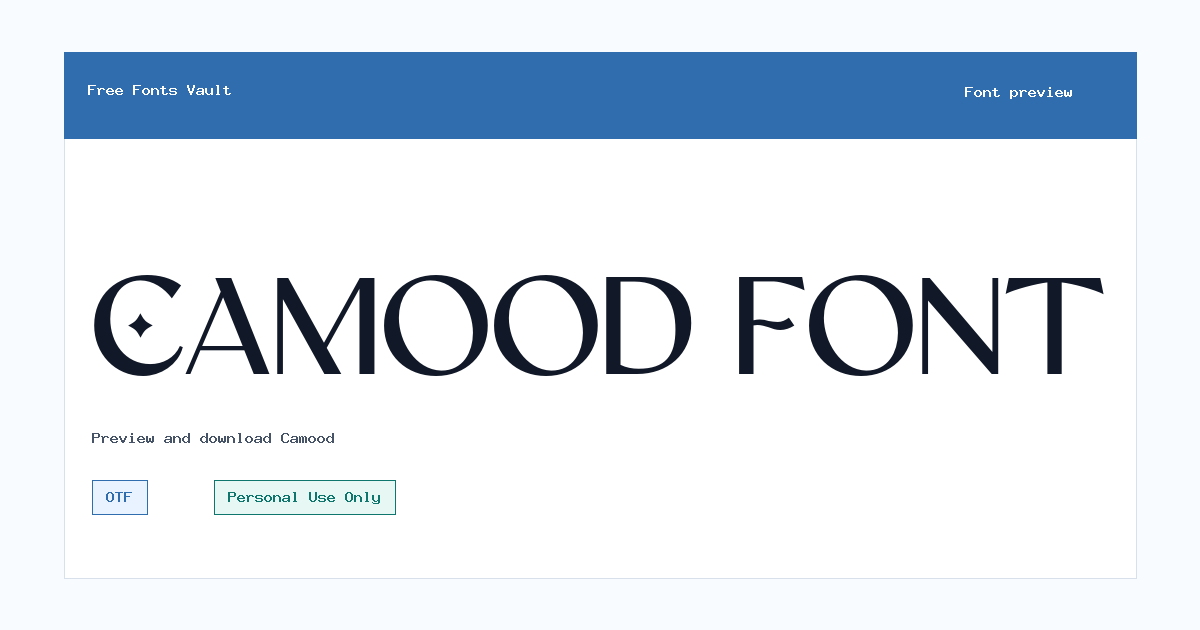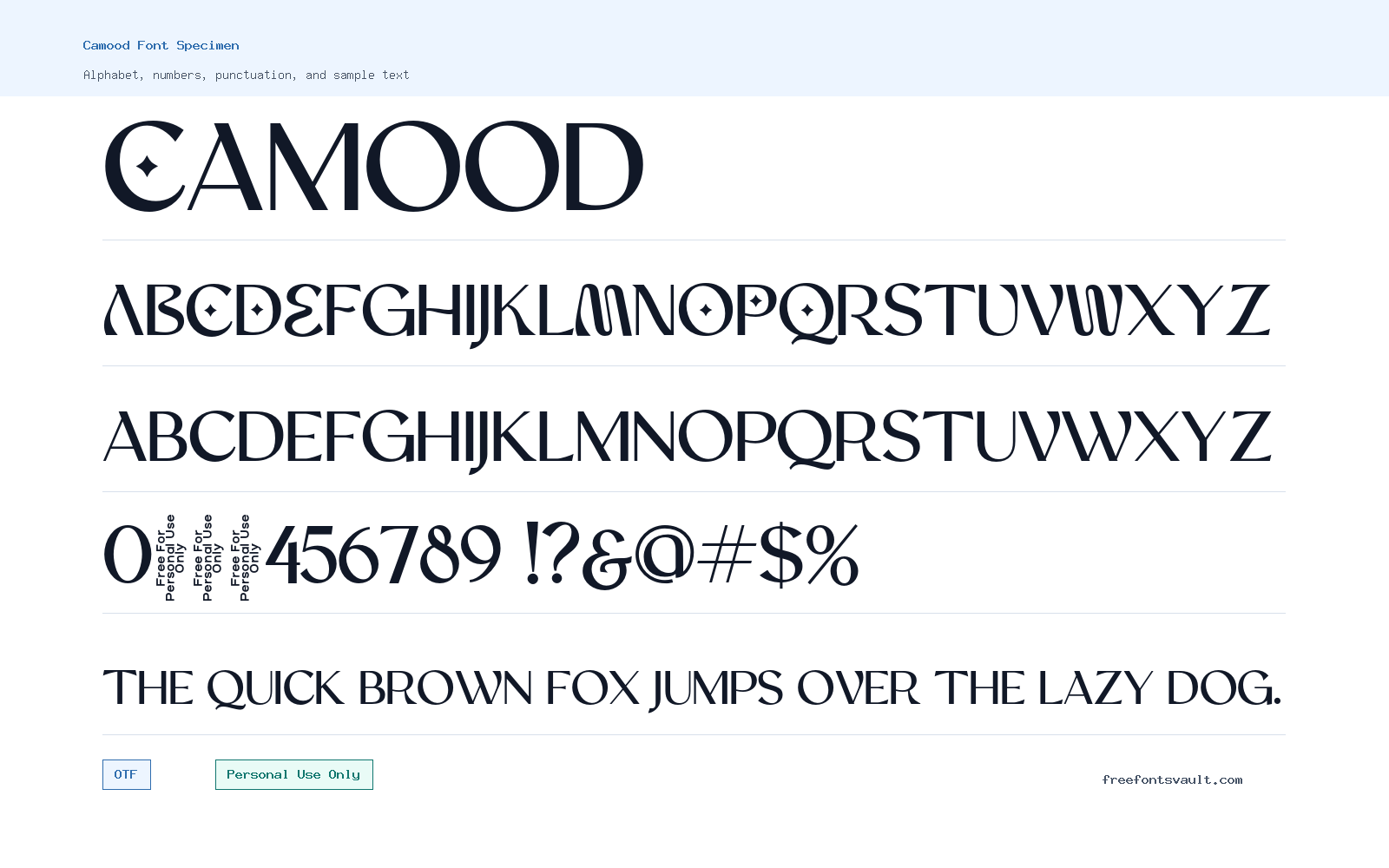
Camood
- Designer Zidan Zamzani
Camood font.
Camood is a personal-use font by Zidan Zamzani, offered in a regular OTF style for visitors who want to test a clean display typeface before downloading.
About Camood Font
Camood works best when you treat it as a display font rather than a long-reading text face. Use the preview box to try short words, brand-style names, headings, initials, and title lines. Because only one regular style is listed, the main thing to check is how the letter shapes behave at the exact size you plan to use. Some fonts look strong in a logo-sized word but lose clarity in smaller menu text, captions, or dense paragraphs.
- Single-weight font family suited for short display text and previews
- Designer credited as Zidan Zamzani
- Personal logo mockups
- Short headings and title graphics
- Invitations, name cards, and decorative personal designs
- Testing display typography in a design preview
Who designed Camood?
Camood is credited to Zidan Zamzani.
What is Camood best used for?
Use it for short personal display text such as headings, mock logos, name treatments, invitations, and social graphics. Test readability before using it at small sizes.
Does Camood include multiple weights?
Only one regular style is listed, with normal style and 400 weight. There are no bold or italic variants shown.